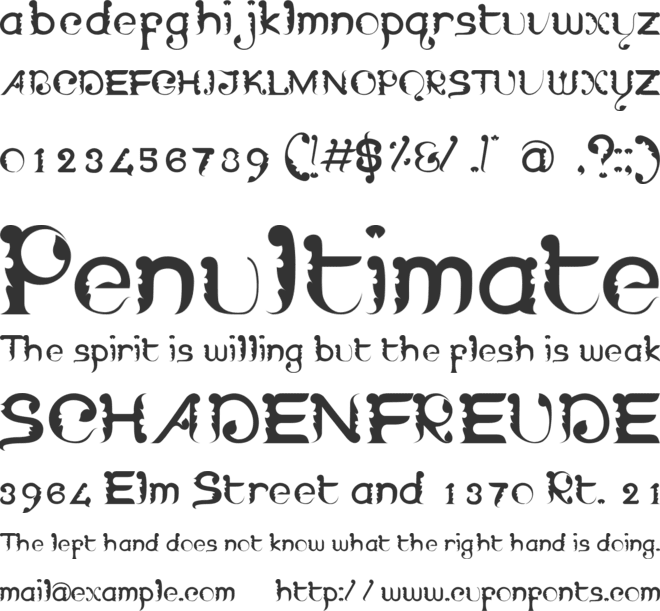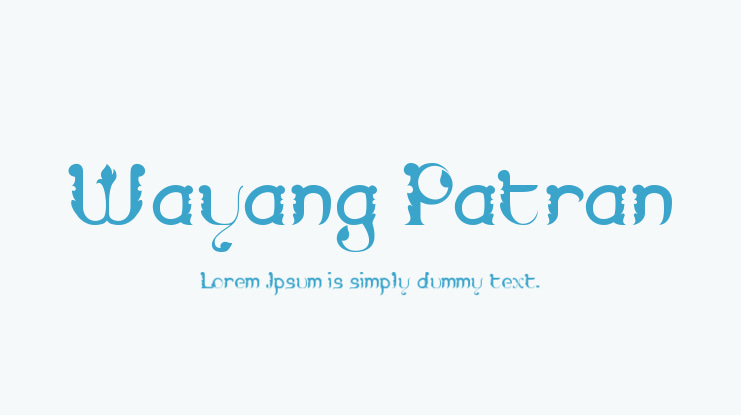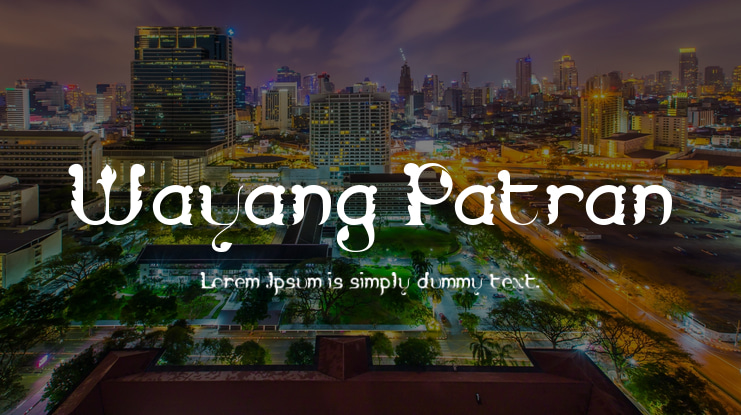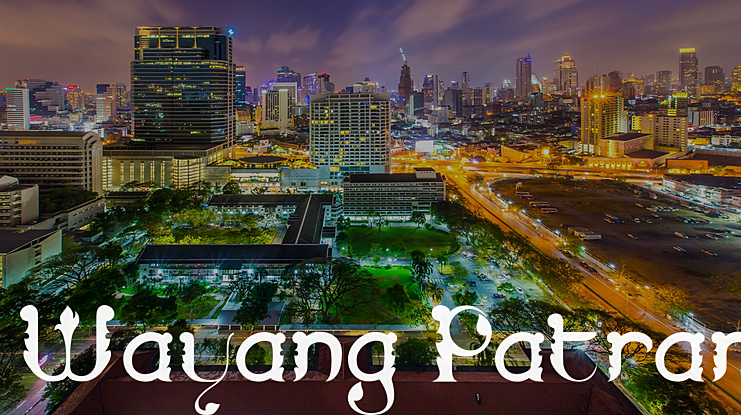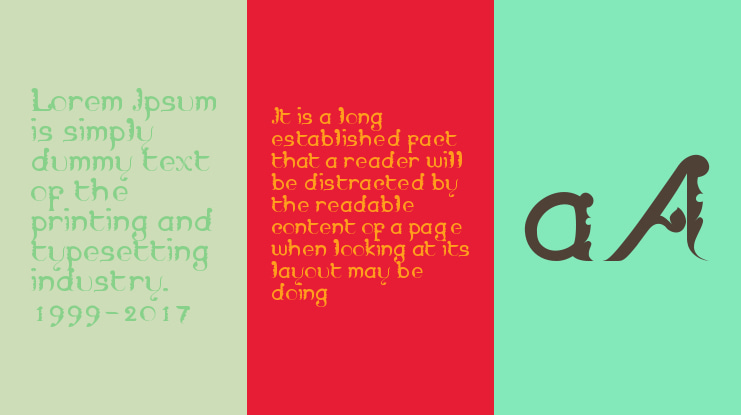
Wayang Patran Font
This typeface is inspired by patterns inside Wayang and Patran patterns.
Wayang adalah seni pertunjukkan asli Indonesia yang berkembang pesat di Pulau Jawa dan Bali.
Wayang Wayang is an original particular kinds of theatre from Java. When the term is used to refer to kinds of puppet theatre, sometimes the puppet itself is referred to as wayang. Performances of shadow puppet theatre are accompanied by a gamelan orchestra in Java, and by gender wayang in Bali.
Patran Patran berbentuk seperti daun yang disusun berderet-deret. Biasanya patran ditempatkan di bagian bangunan yang sempit dan panjang.
Patran Patran is a Javanese ethnic pattern which looks like stacked leaves in rows. Usually it is crafted on narrow and long part of a building.
I created this font for it's my university's assignment. But I found a great joy in the making. :)